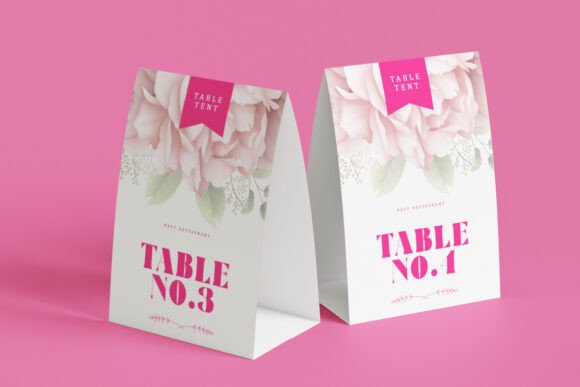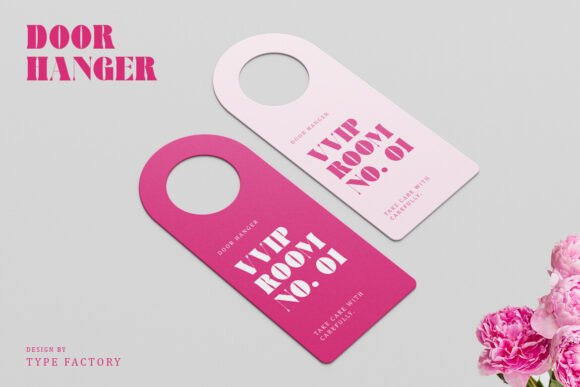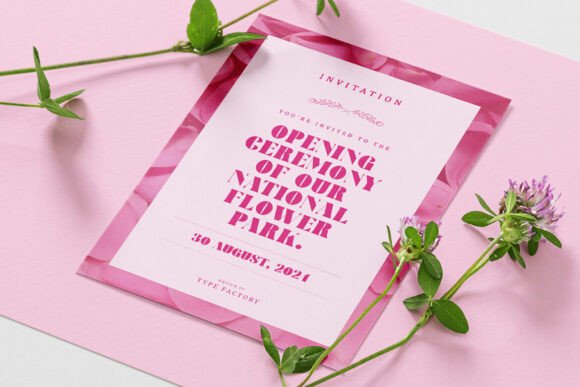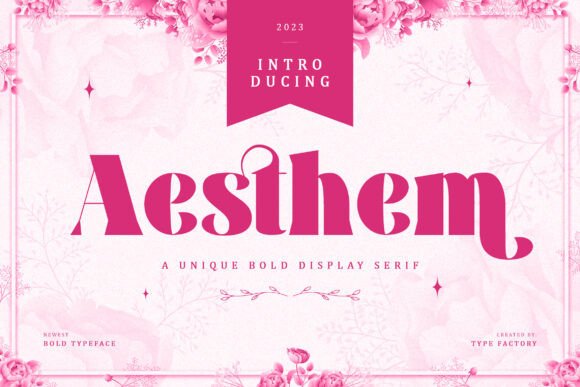
I still remember the frustration of working on a high-end fashion brand’s logo design project. My client wanted a font that exuded luxury, sophistication, and elegance, but I was struggling to find the right one. I scoured through countless font libraries, but nothing seemed to fit the bill. That was until I stumbled upon Aesthem Font. ✨
With its unique blend of boldness and refinement, Aesthem instantly caught my attention. I was impressed by its high-contrast strokes, sharp serifs, and artistic curves that seemed to dance across the page. It was love at first sight! In this article, I’ll share my experience with Aesthem Font, its features, and how to make the most of it in your designs.
Aesthem Font: A Bold yet Elegant Display Serif
Aesthem is a display serif typeface that masterfully balances elegance and strength. Its refined yet expressive design makes it perfect for logos, headlines, posters, packaging, and editorial layouts. Whether you’re working in print or digital media, Aesthem is sure to make a bold statement. 💥
Here are some of the key features that make Aesthem stand out:
- High-contrast strokes that add depth and dimension
- Sharp serifs that provide a sense of sophistication
- Artistic curves that bring a touch of elegance
- Refined yet expressive design that’s perfect for luxury brands
An Honest Review: What I Love and What I Don’t
- ✨ Versatility: Aesthem works beautifully in both print and digital media.
- ✅ Elegance: The font’s refined design makes it perfect for luxury brands and high-end projects.
- 💥 Impact: Aesthem’s bold display serif design is sure to make a statement in any design.
- ⚠️ Limited use cases: Aesthem is a display font, so it’s best used for headlines and titles rather than body text.
- 🤔 Kerning issues: As with any font, you may need to adjust the kerning to ensure optimal spacing.
The Designer Inspiration Behind Aesthem
Aesthem Font was designed with the goal of creating a bold yet elegant display serif that would meet the needs of luxury brands. The designer drew inspiration from classic serif fonts, adding a modern twist to create a unique and refined design. 💡
Q: What is Aesthem Font best used for?
A: Aesthem Font is best used for logos, headlines, posters, packaging, and editorial layouts where a bold yet elegant display serif is required.
Q: Can I use Aesthem Font for body text?
A: While Aesthem Font can be used for body text, it’s primarily designed as a display font, so it’s best used for headlines and titles.
Q: Is Aesthem Font suitable for digital media?
A: Yes, Aesthem Font works beautifully in digital media, including websites, social media, and digital advertising.